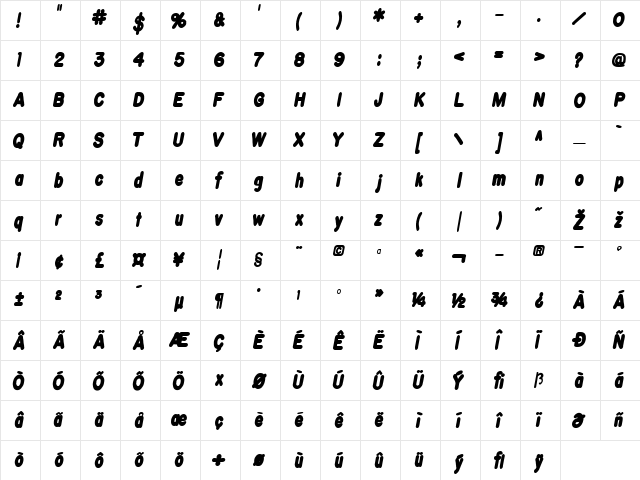
Burnt Toast WithJam
Design Context for Burnt Toast Typeface
Burnt Toast takes a measured approach to typography — its balanced proportions and neutral character make it a reliable workhorse for both digital and print work.